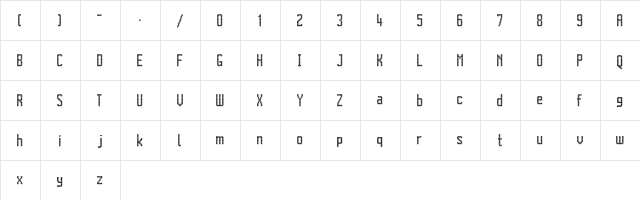
Citaro Voor (dubbele hoogte, midden/dubbel) Regular
| Designer | Jeffrey Visser |
Design Context for Citaro Voor (dubbele hoogte, midden/dubbel) Typeface
Citaro Voor (dubbele hoogte, midden/dubbel) takes a measured approach to typography — its balanced proportions and neutral character make it a reliable workhorse for both digital and print work.